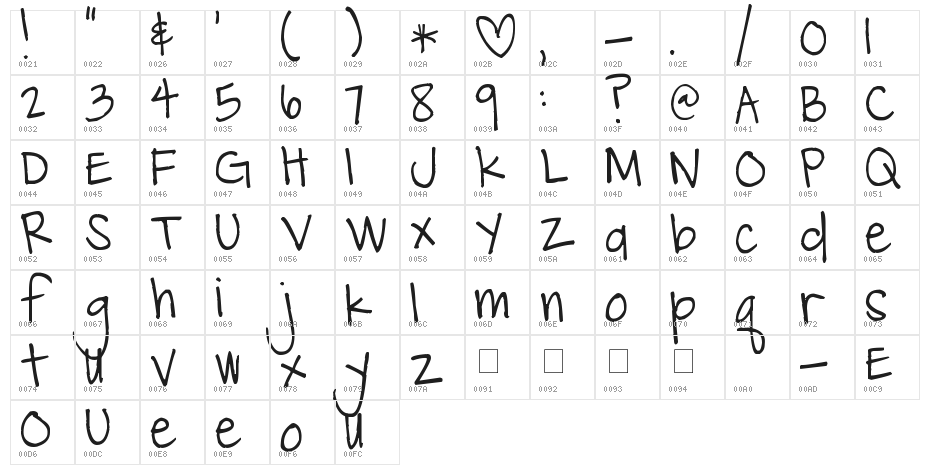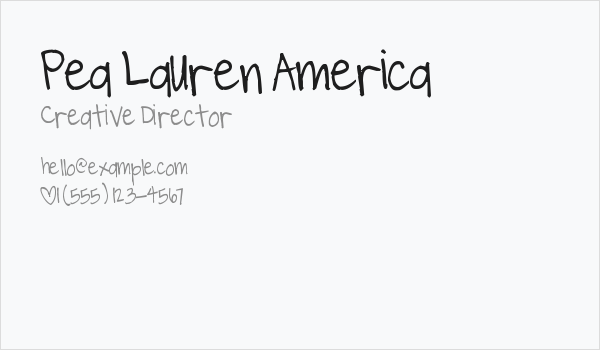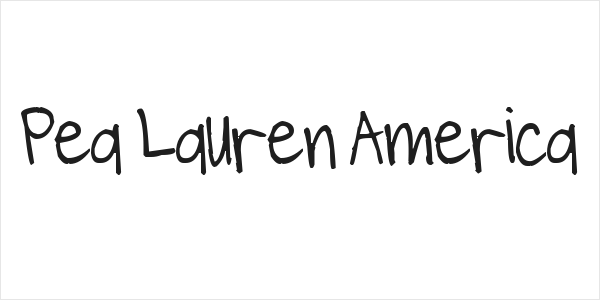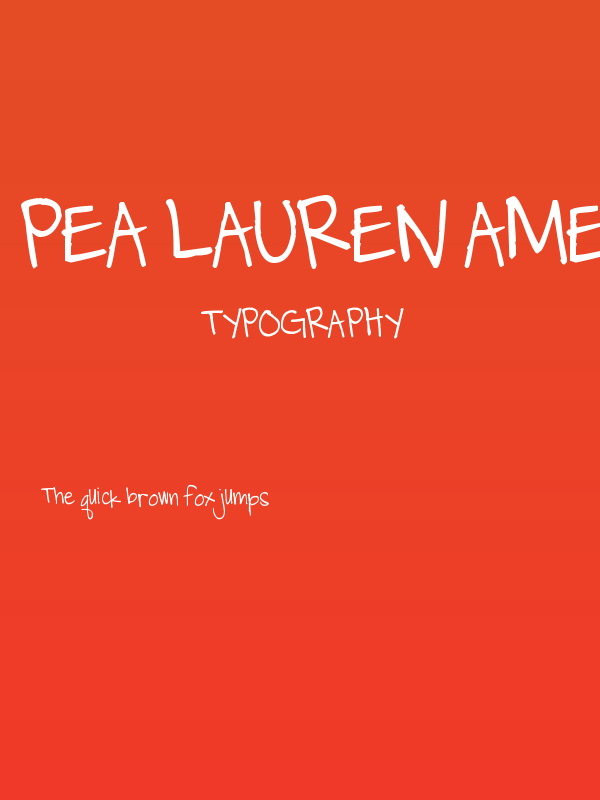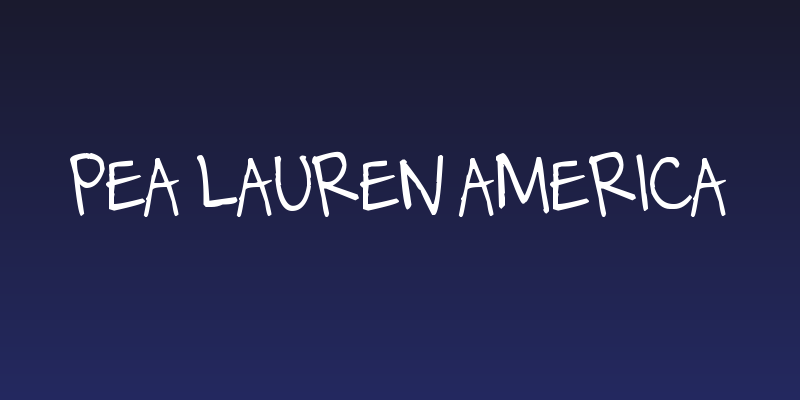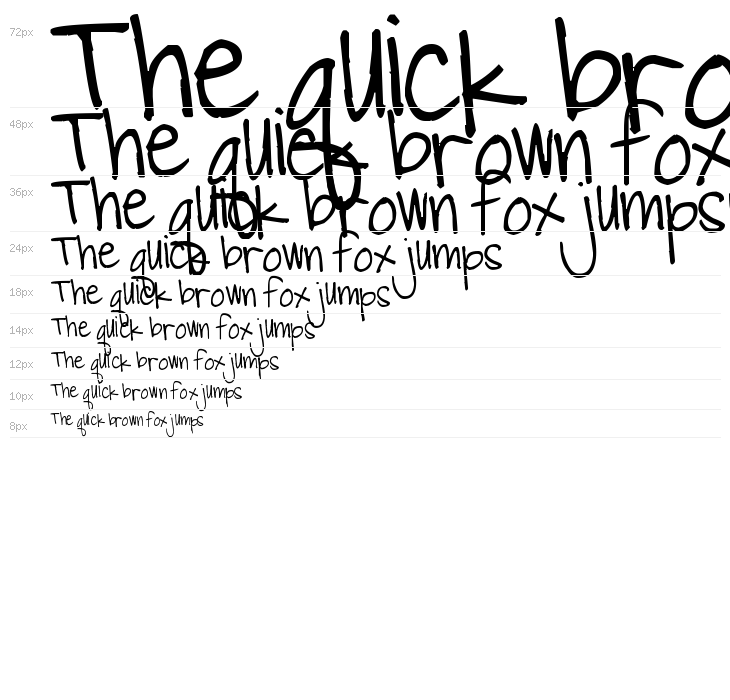
Pea Lauren America Font
Pea Lauren America Description
This playful and casual handwritten font exudes a sense of spontaneity and creativity. The letters are unevenly sized and slightly tilted, giving it a lively and informal appearance. The strokes are bold and consistent, with a medium contrast between thick and thin lines. The overall style is reminiscent of a personal note or a quick sketch, making it ideal for projects that require a touch of personality and warmth. The character spacing is normal, allowing for easy readability while maintaining its quirky charm.
| Use Case | Greeting cards, Personal notes, Creative branding |
| Proposed Projects | Ideal for greeting cards, personal notes, children's books, and creative branding projects. |